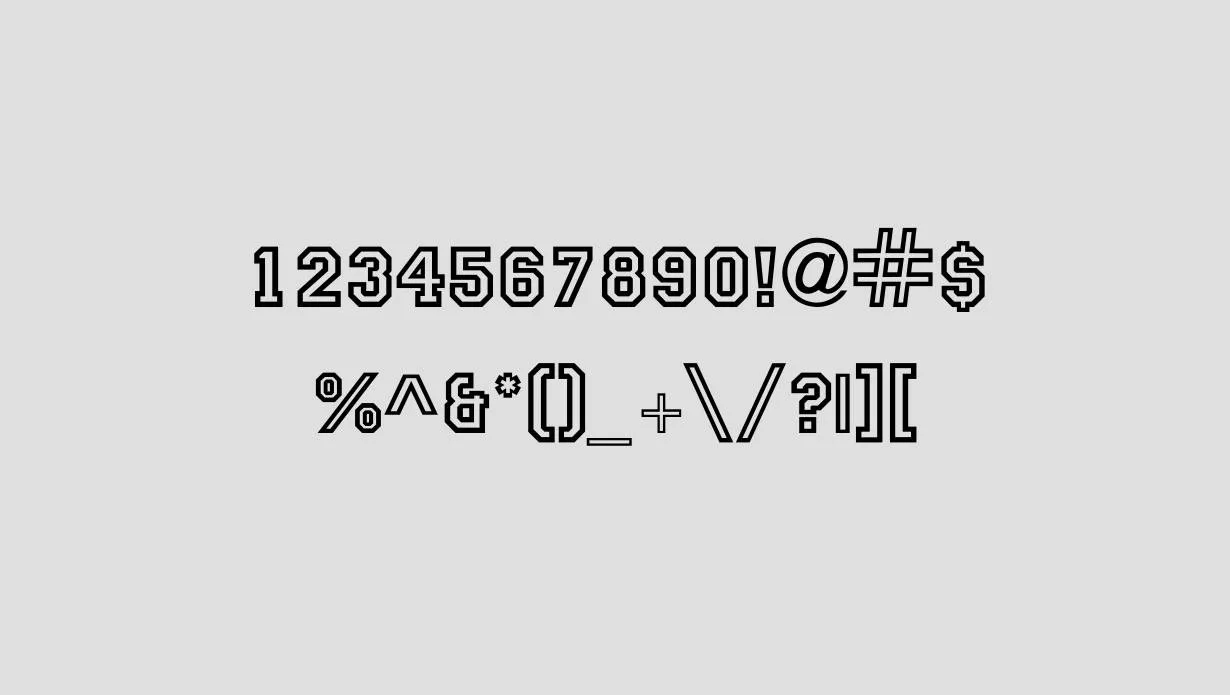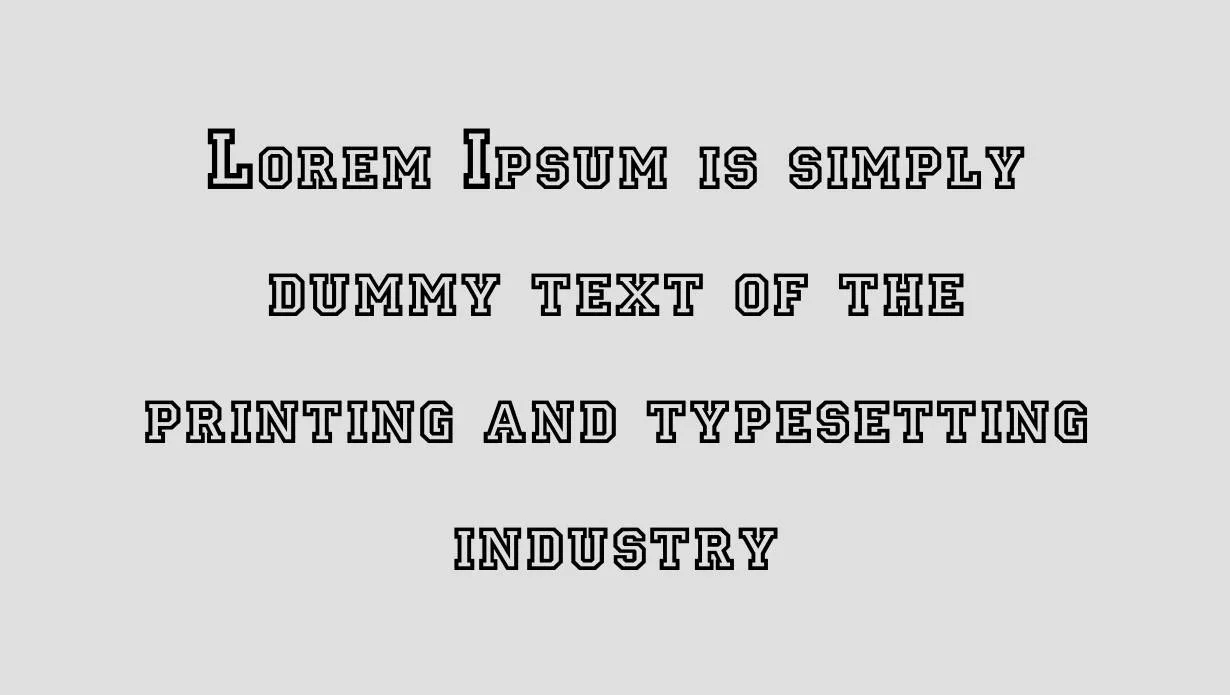
Princeton Font exudes elegance and sophistication with its classic serif design. It’s a versatile typeface suitable for various formal and stylish projects. You can apply it to invitations, certificates, or any material that requires a touch of refinement and tradition.
Princeton Font Family